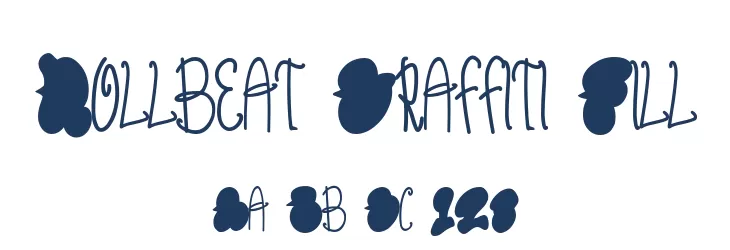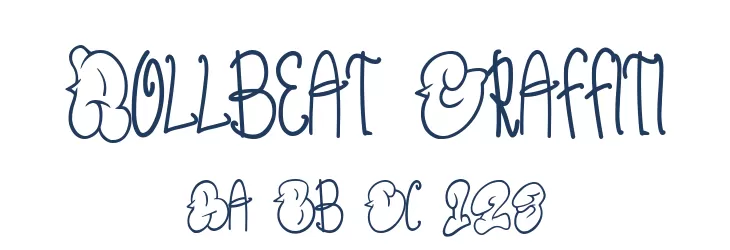
A playful, rounded font with a whimsical and informal style.
A bold, decorative font with modern and vintage elements, featuring intricate curves and flourishes.
A modern, geometric sans-serif font with clean lines and uniform strokes.
A whimsical, elegant handwritten font with fluid, cursive strokes.
A fluid, elegant script font with a handwritten style.
A flowing, elegant handwritten font with artistic curves and loops.
A dynamic script font with smooth, cursive strokes and elegant curves.
A fluid and elegant script font with a handwritten style.
A bold, playful font with chunky, cartoonish letterforms.
A playful, handwritten font with smooth curves and a casual style.
A modern sans-serif font with clean lines and balanced spacing.
A modern, slanted font with a sleek and dynamic appearance.
A playful, bold handwritten font with dynamic strokes.
A bold, brush-style font with dynamic, expressive strokes.
A dynamic, handwritten font with fluid strokes and artistic flair.
A dynamic, cursive italic font with fluid strokes and a handwritten feel.
An artistic and angular font with a bold, geometric style.
A bold, geometric stencil font with a modern industrial style.
A playful, hand-drawn style font with rounded, consistent strokes.
A flowing, cursive script font with smooth, rounded edges.
An elegant and flowing script font with sophisticated cursive style.
A cursive, handwritten font with elegant, flowing lines and varying stroke thickness.
A bold, cursive script font with fluid, connected characters.
A geometric, architectural font with a modern, technical style.
A modern, elegant script font with fluid, graceful strokes and a handwritten feel.
A bold, dynamic script font with fluid, connected letterforms.
A bold, hand-drawn font with textured, brush-like strokes.
A bold, geometric font with a modern and futuristic style.
A playful and energetic script font with a handwritten style.
An elegant script font with flowing, high-contrast strokes and ornate flourishes.
A playful, bold font with a hand-drawn, whimsical style.